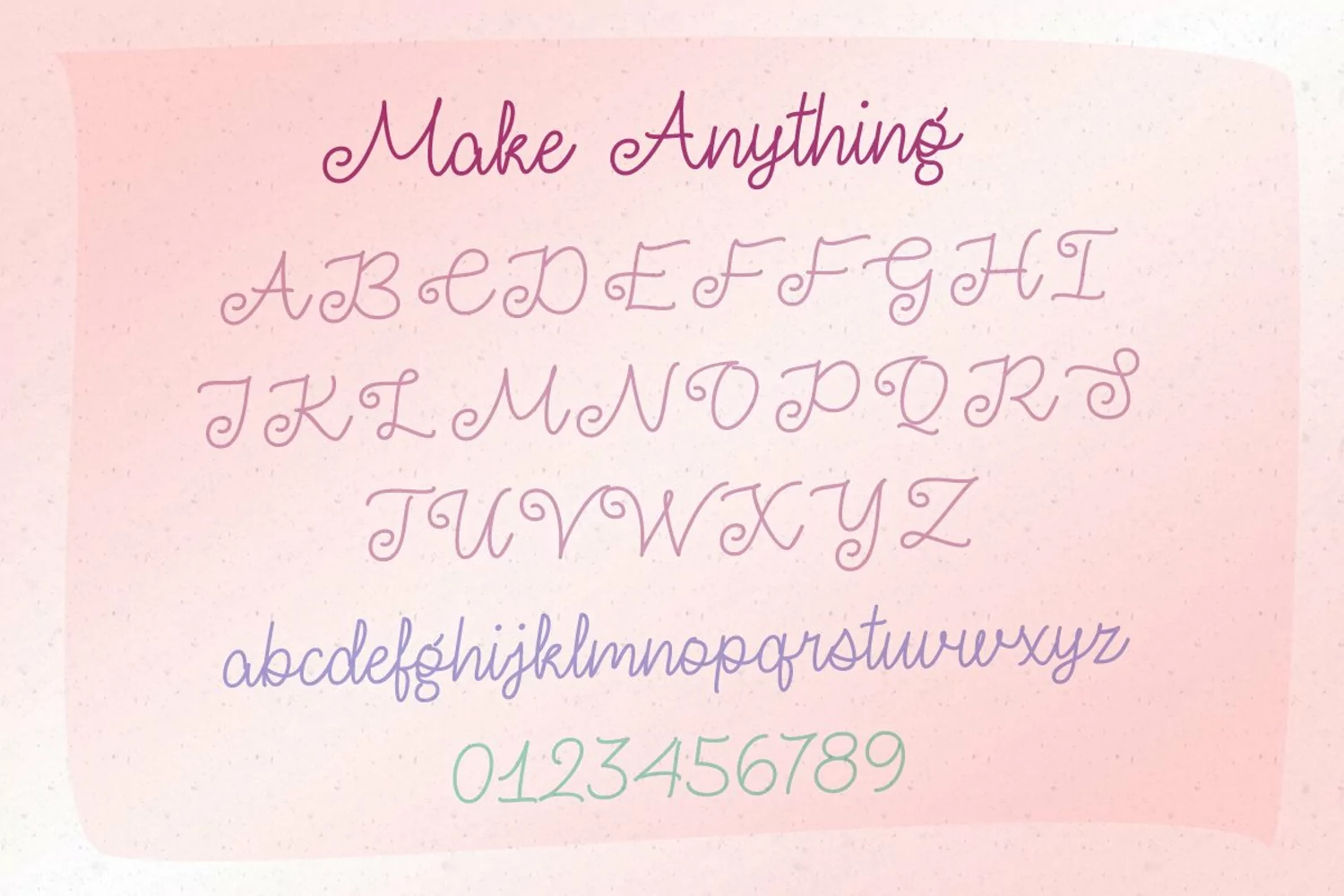
Make Anything is a lovely, cursive typeface carefully crafted with curls and swashes. Perfect for adding elegance to your projects!
- 595 glyphs (including uppercase, lowercase, numbers, and punctuation)
- Lots of extra glyphs (swashes and ligatures)
- Lots of language support (covers most European languages + Vietnamese) and I can add more language support at request!